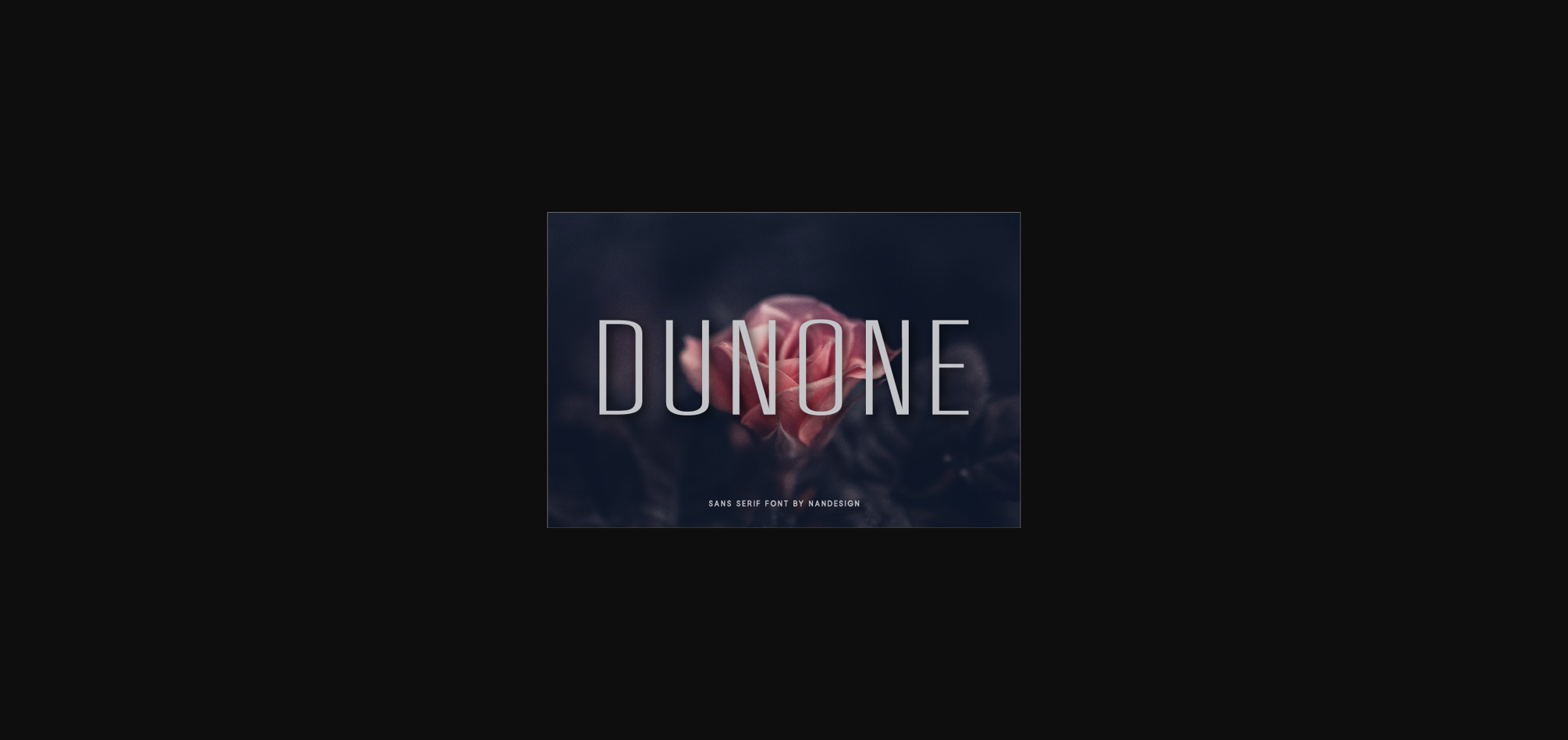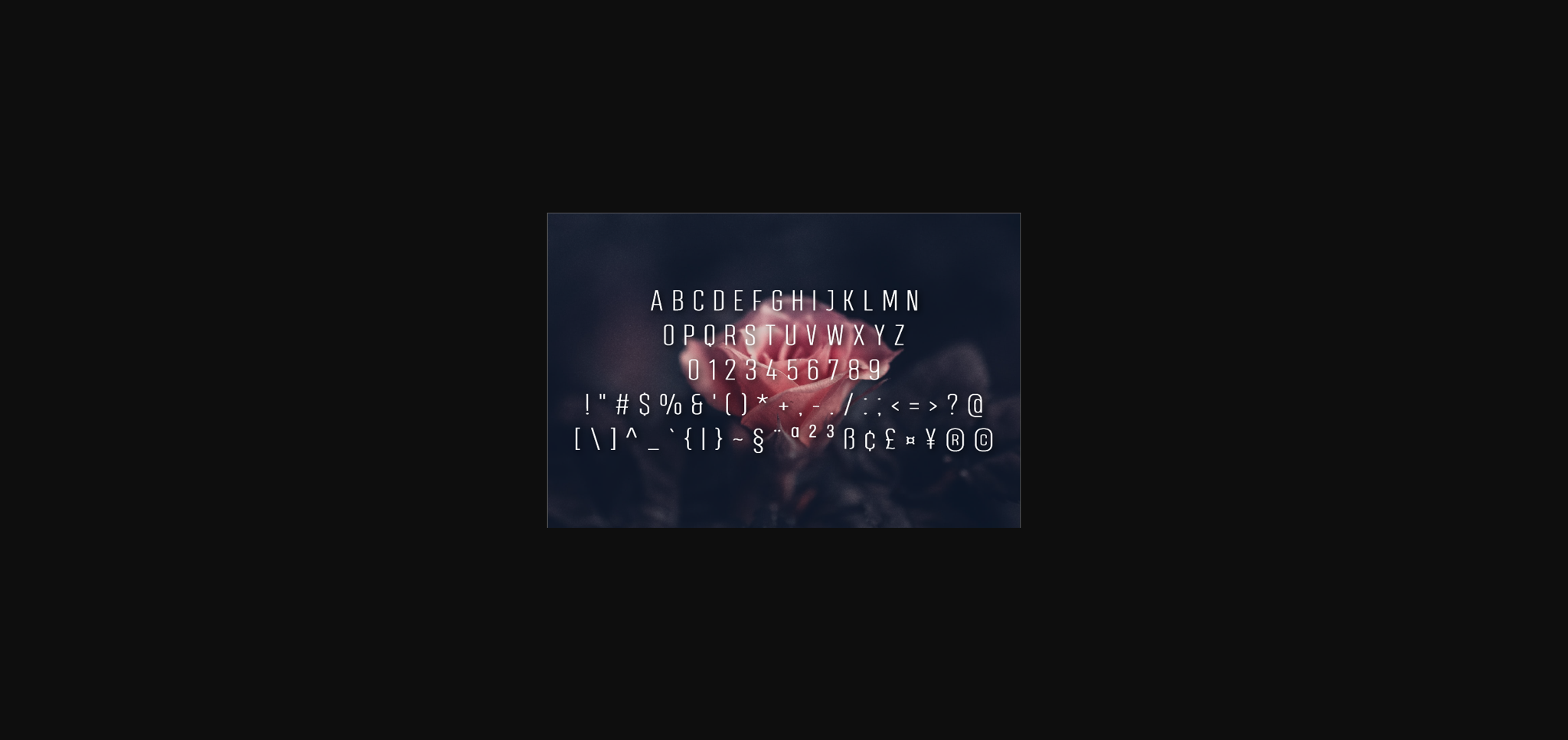
About Dunone Font
Dunone is a distinct and elegant sans serif font. With its undeniably clean feel and a neat and beautiful arrangement of letters, this typeface will look outstanding in both formal and non-formal designs.